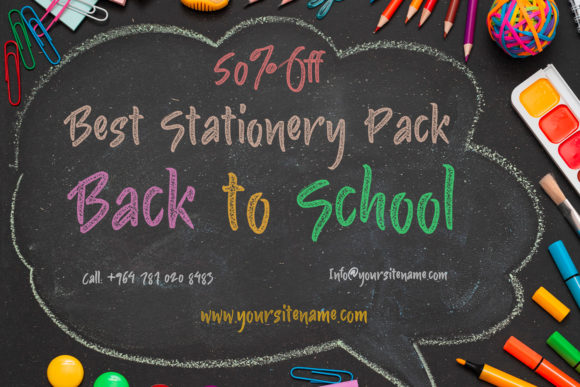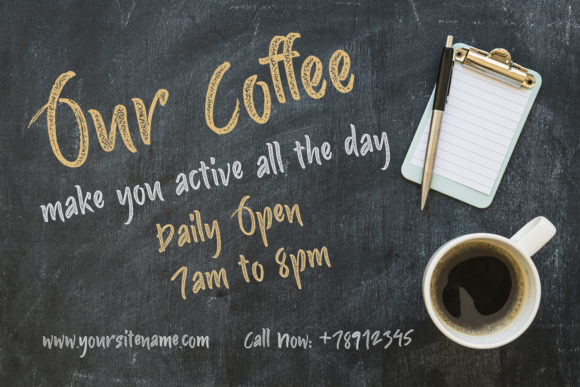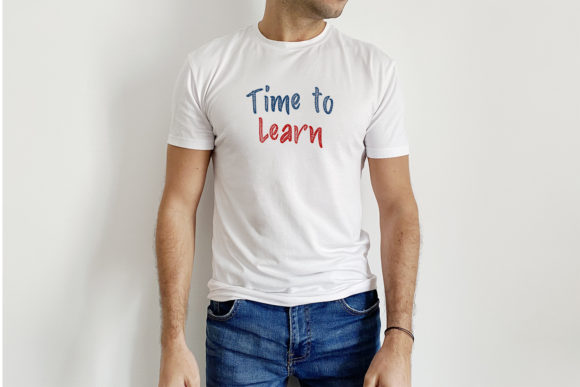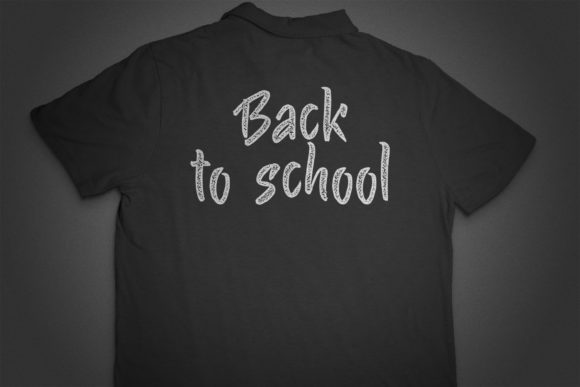
Unlock the Magic of Handwritten Chalk Font
You’ve just spent hours brainstorming ideas for your next design project, and as you sit at your desk, a blank sheet of paper stares back at you. The cursor blinks, taunting you with its silence. Suddenly, a burst of creativity hits, and you imagine the perfect font to bring your vision to life. That’s where the Handwritten Chalk Font comes in – a sweet and colorful handwritten font that’s as versatile as it is charming.
This delightful font is perfect for designers who want to add a touch of whimsy and personality to their designs. With its unique, hand-drawn style, Handwritten Chalk Font is ideal for creating eye-catching titles, headings, and even entire stories. Its value lies in its ability to evoke a sense of warmth and playfulness, making it a valuable addition to any designer’s toolkit.
Key Features of Handwritten Chalk Font
- Font Style: Handwritten, chalkboard-inspired font with a unique, informal feel.
- Unique Characteristics: Features subtle texture and imperfections that mimic the look of handwritten chalk, adding a touch of authenticity and personality to designs.
Handwritten Chalk Font Review
As a designer, I was excited to dive into the world of “Handwritten Chalk Font”. I have to say, it’s a charming and whimsical font that can add a touch of personality to any design project.
- ✨ Unique and hand-crafted feel: This font has a distinct, handwritten quality that’s perfect for creating a warm and inviting atmosphere.
- ✨ Versatile: The font is suitable for a wide range of designs, from children’s books to wedding invitations.
- ✨ Easy to read: Despite its handwritten nature, the font is surprisingly easy to read, making it perfect for text-heavy projects.
However, there are some limitations:
- ⚠️ Limited character set: The font’s character set is limited, which can make it difficult to use for projects that require a wide range of special characters.
- ⚠️ Not suitable for small text: Due to its handwritten nature, the font can become difficult to read when used in small sizes.
Overall, I think “Handwritten Chalk Font” is a great addition to any designer’s toolkit. While it has some limitations, its unique charm and versatility make it a great choice for the right project.
The Handwritten Chalk Font is perfect for:
- Creative projects, such as invitations and party decorations
- Branding and marketing materials, such as logos and business cards
- Education and training materials, such as worksheets and presentations